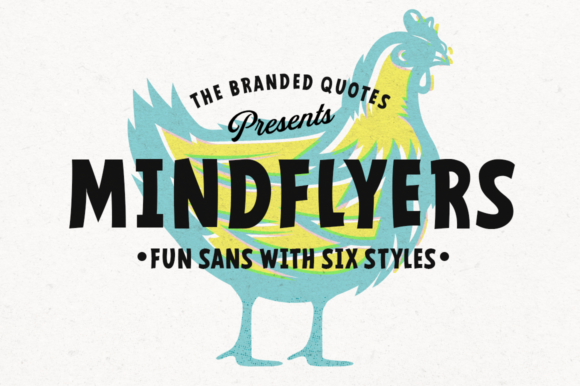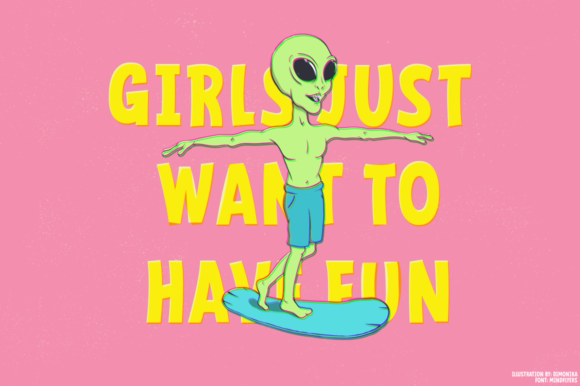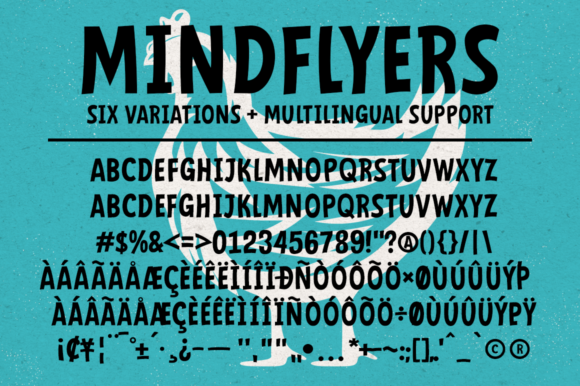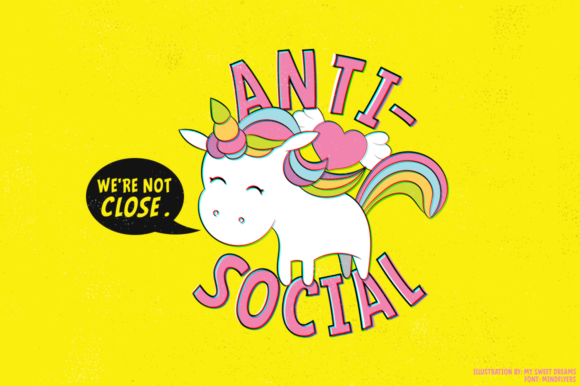
Mindflyers Font: A Cool Sans Serif for Playful Branding & Cricut Crafts
About the Mindflyers Font
The Mindflyers Font is here to transform your projects with its distinctive character and style. Mindflyers is a sweet and cool sans serif font with a unique vibe. Fall in love with its fun style.
Mindflyers’ playful energy makes it ideal for headlines, short branding slogans, posters, and packaging design where a fun, approachable feel is desired. Its unique letterforms add visual interest without sacrificing readability in shorter text settings. However, its less-than-optimal x-height and relatively loose letter spacing make it unsuitable for body text or lengthy paragraphs, as well as user interfaces requiring high legibility.
Pairing Mindflyers effectively requires consideration of its informal character. A clean sans-serif like Open Sans or Lato would provide a solid, readable counterpoint for body copy, maintaining visual harmony. For a more sophisticated feel, a subtle serif like Garamond or Merriweather could be used for supporting text, adding a touch of classic elegance to contrast the font’s modern quirkiness.
Its overall personality is best described as friendly and modern, with a touch of boldness. Brands targeting a younger demographic, or those emphasizing creativity and fun, will find Mindflyers a strong asset in their visual identity.
Mindflyers Font Usage Examples
Mindflyers Font Example